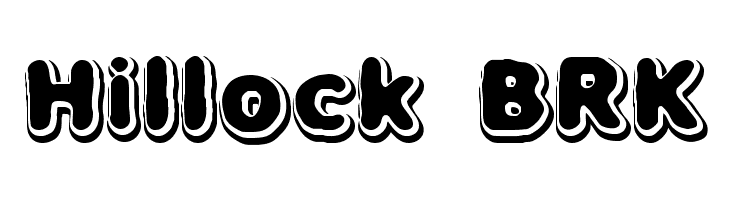
A bold, geometric font with a vintage industrial feel.
A playful, hand-drawn font with bold, uneven strokes and a lively aesthetic.
A bold, spiky font with a playful and edgy design.
A bold, playful handwritten font with a casual and approachable style.
A bold, outlined font with a modern and geometric style.
A bold, geometric font with sharp angles and a futuristic style.
Cartoonish, character-based display font with comic-style illustrations.
A playful, modern handwritten font with tall, narrow characters and smooth strokes.
A playful, rounded font with whimsical loops and consistent stroke weight.
A bold, handwritten font with a casual and artistic style.
An elegant, flowing script font with a sophisticated, handwritten style.
A modern, semi-condensed sans-serif font with medium weight and excellent readability.
A bold, geometric font with outlined characters and a futuristic style.
A bold and expressive script font with flowing, cursive letterforms.
A bold, hollow, geometric font with a futuristic and tech-inspired design.
A whimsical decorative font with pony illustrations embedded in each letter.
Comic-inspired, illustrative display font with detailed scene-based glyphs.
A medium weight, italic serif font with a classic and elegant style.
Extra-condensed, bold sans-serif with geometric, modern style.
A casual, script-style font with fluid, flowing strokes and a relaxed vibe.
A hand-drawn, rustic font with irregular strokes and a playful, edgy aesthetic.
An elegant, flowing script font with graceful loops and a sophisticated style.
A modern, extra-condensed font supporting the Thai script with clarity and elegance.
A bold, dripping font with a chaotic and intense style.
A textured, vintage serif font with a distressed, handcrafted look.
Decorative frames and ribbons for embellishment.
A playful, handwritten font with bold, dynamic characters.
Playful handwritten font with a casual style.
A bold, decorative font with a layered, dimensional effect.
A bold, futuristic font with geometric angles and a dynamic slant.
A bold, geometric, and decorative font with a modern flair.
A bold, angular font with a geometric and modern style.
A bold, hand-drawn font with a playful and energetic style.
A playful, hand-drawn font with bold, rounded characters and a whimsical style.